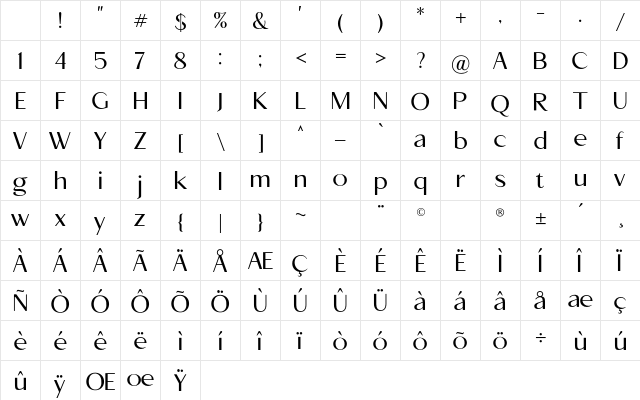
Complete APOLLO Regular glyph index. Displaying only characters natively supported by APOLLO Regular font.
APOLLO is a composed and adaptable typeface that performs quietly and consistently across a wide range of design contexts.